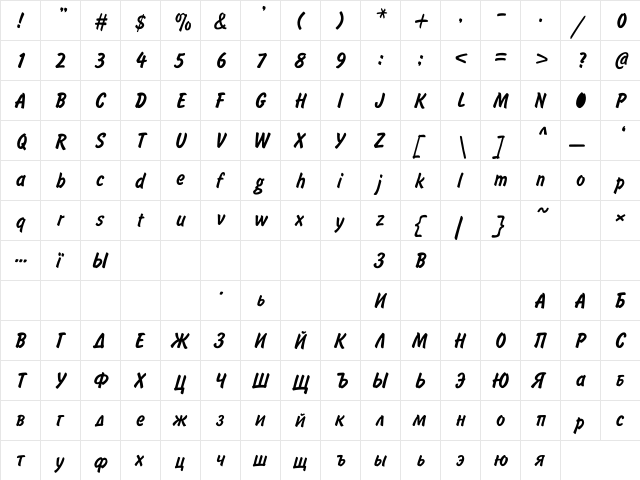
BrushType-SemiBoldA Italic Font Preview
BrushType-SemiBoldA Italic
BrushType-SemiBoldA Italic Font Details
Design Context for BrushType-SemiBoldA Typeface
BrushType-SemiBoldA flows with the natural rhythm of handwritten lettering, making it ideal for designs that call for warmth and personal expression. The heavy weight commands attention and anchors typographic hierarchies.